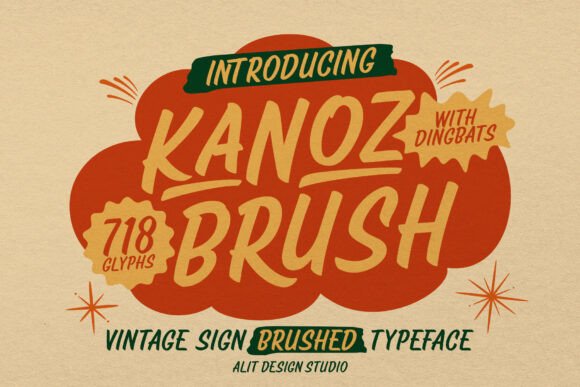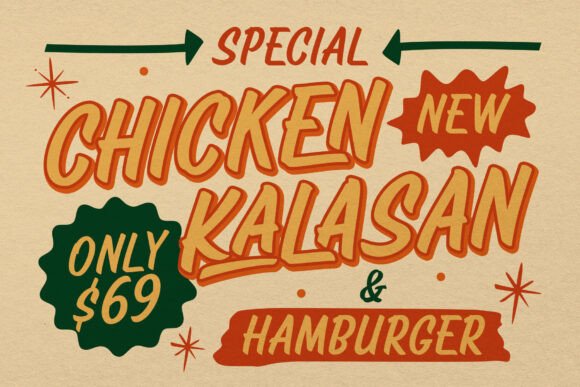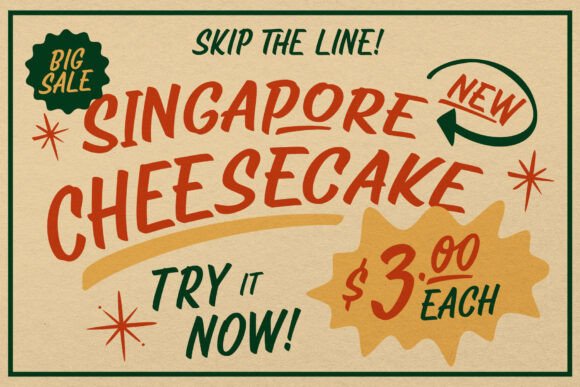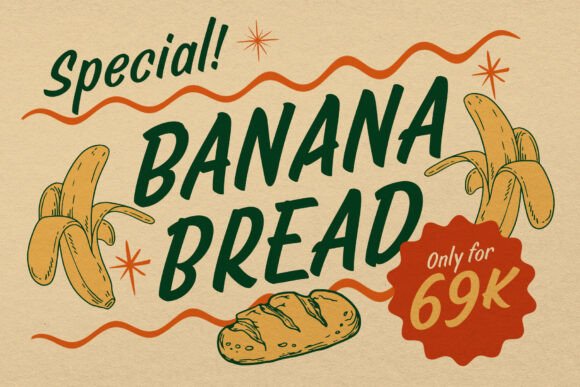
Kanoz Brush Font
About the Kanoz Brush Font
Unleash your creativity with Kanoz Brush Font, a versatile font perfect for a wide range of applications. Kanoz Brush Typeface is a meticulously crafted font that captures the essence of vintage sign art with a modern twist. Inspired by traditional hand-painted signs, this typeface showcases bold, sweeping brush strokes and a natural, textured look that brings an authentic, handcrafted feel to any design.
Kanoz Brush excels in headline applications, short text blocks for posters or branding materials, and packaging design where its bold strokes make a strong visual statement. It’s ideal for projects requiring a vintage yet modern feel, conveying authenticity and handcrafted quality. Avoid using it for body text or extended reading; the textured strokes can hinder readability in long paragraphs.
Its energetic personality pairs well with clean sans-serif fonts like Montserrat or Open Sans for a balanced contrast, or a more geometric sans-serif like Futura for a modern, vintage-inspired feel. For a more luxurious touch, consider pairing Kanoz Brush with a delicate serif like Playfair Display.
The font’s overall personality is bold, expressive, and slightly rebellious, making it a strong choice for brands aiming for a vintage-inspired aesthetic with a contemporary edge.
Kanoz Brush Font Usage Examples
Kanoz Brush Font Example